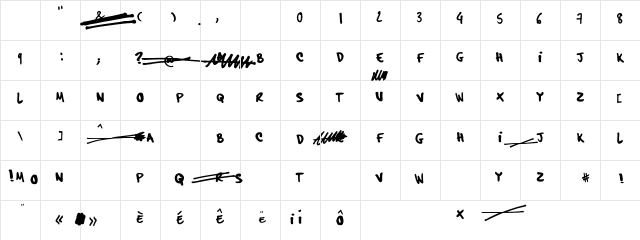
Design Context for hardcore_pen_alternate
hardcore_pen_alternate is a composed and adaptable typeface that performs quietly and consistently across a wide range of design contexts.
Pro Tip: Use hardcore_pen_alternate in both headline and body roles to test its range before committing to a single application.